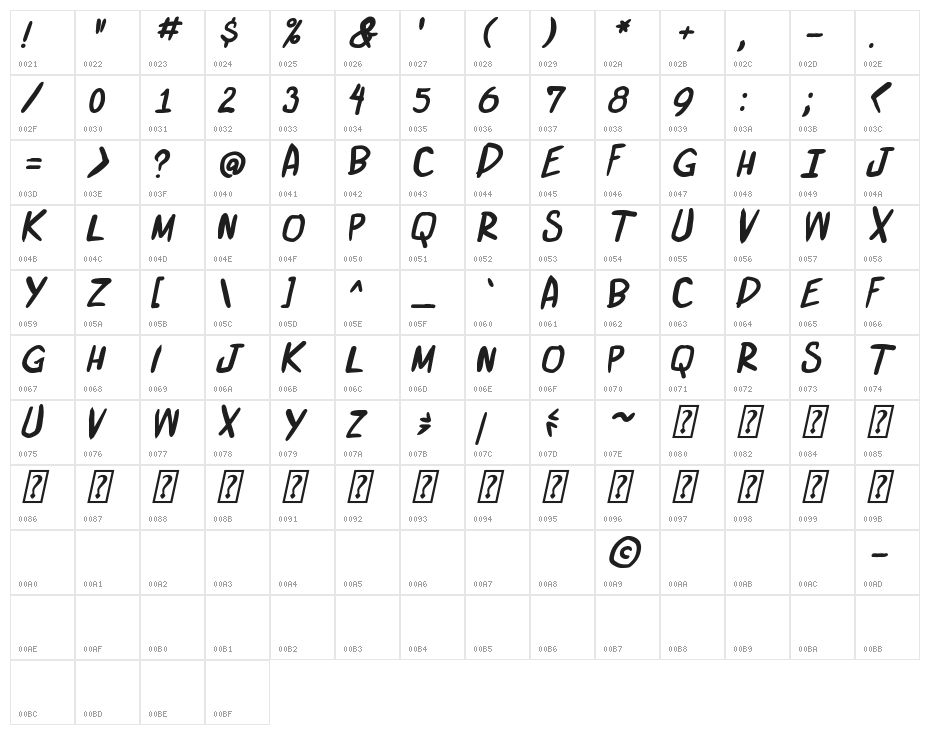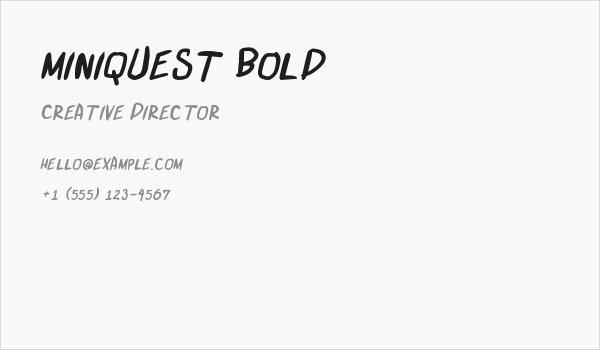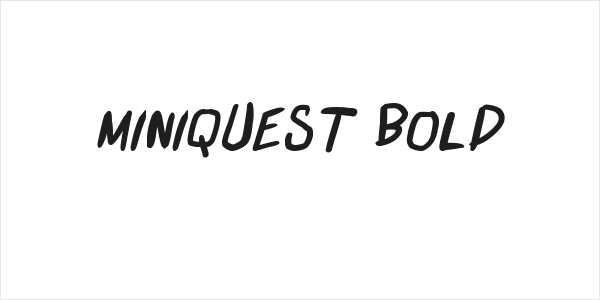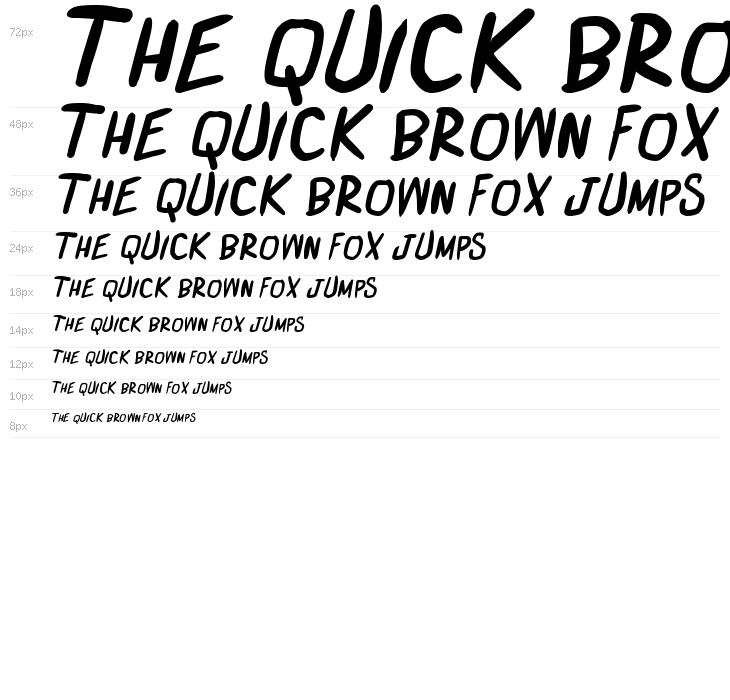
miniquest Bold Font
miniquest Bold Description
This font features a bold, handwritten style with a playful and dynamic appearance. The letters are slightly slanted, giving a sense of movement and energy. The strokes are thick and consistent, providing a strong visual impact. The uppercase and lowercase letters maintain a cohesive look, with rounded edges and a casual feel. Numbers and special characters are designed to match the overall aesthetic, ensuring versatility in various applications. The font's informal style makes it suitable for creative projects that require a personal touch.
| Overall Style | Playful and Casual |
| Proposed Projects | Ideal for greeting cards, posters, children's books, and branding that requires a personal and informal touch. |